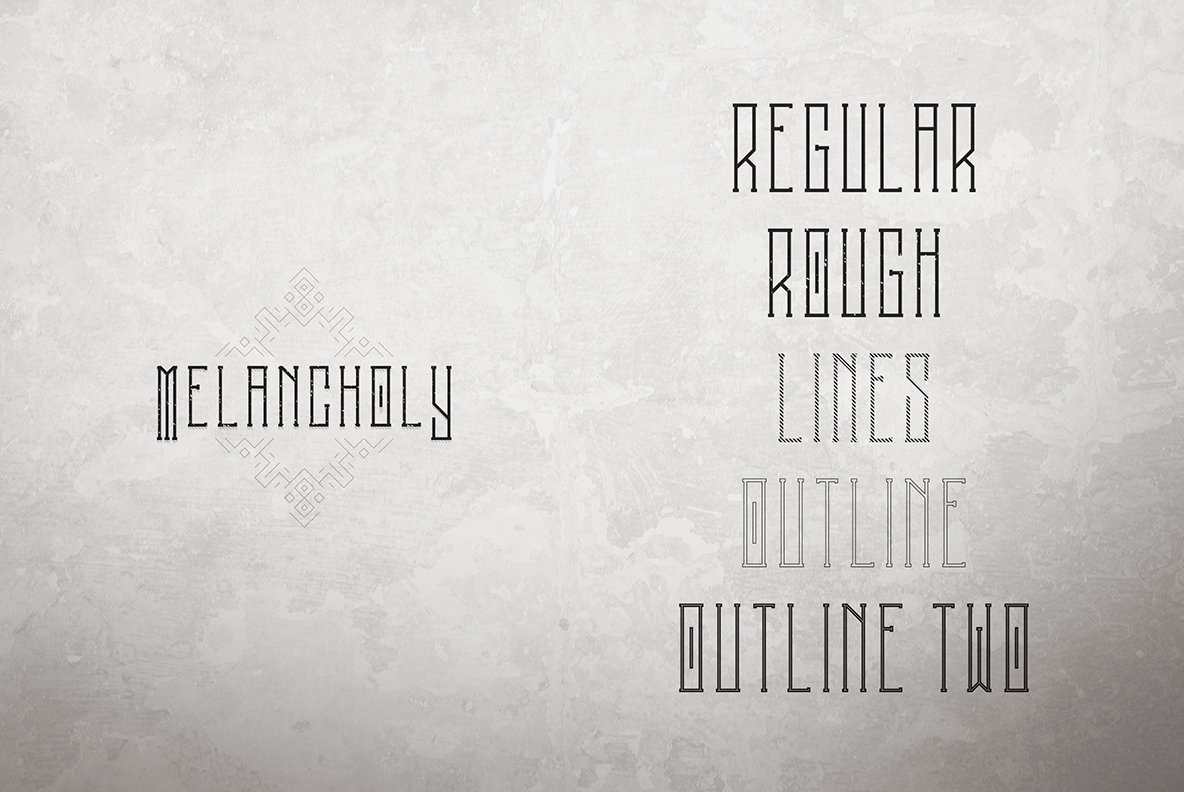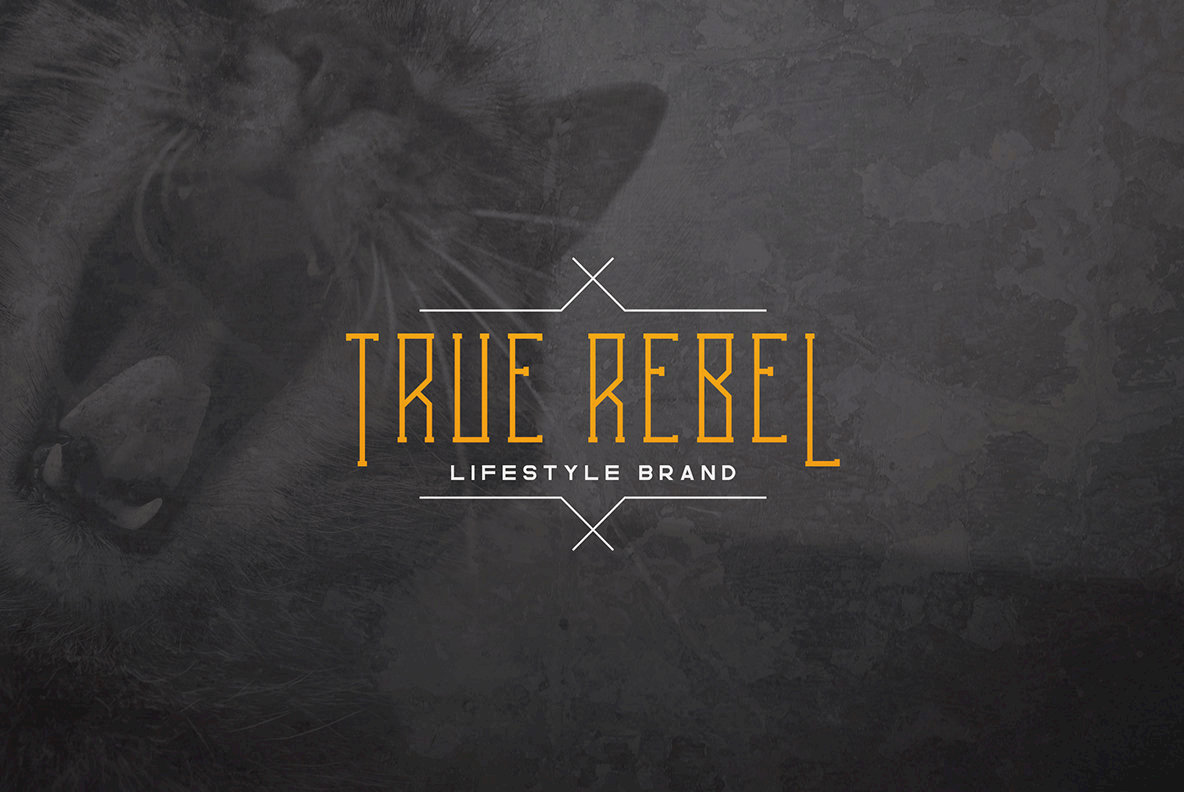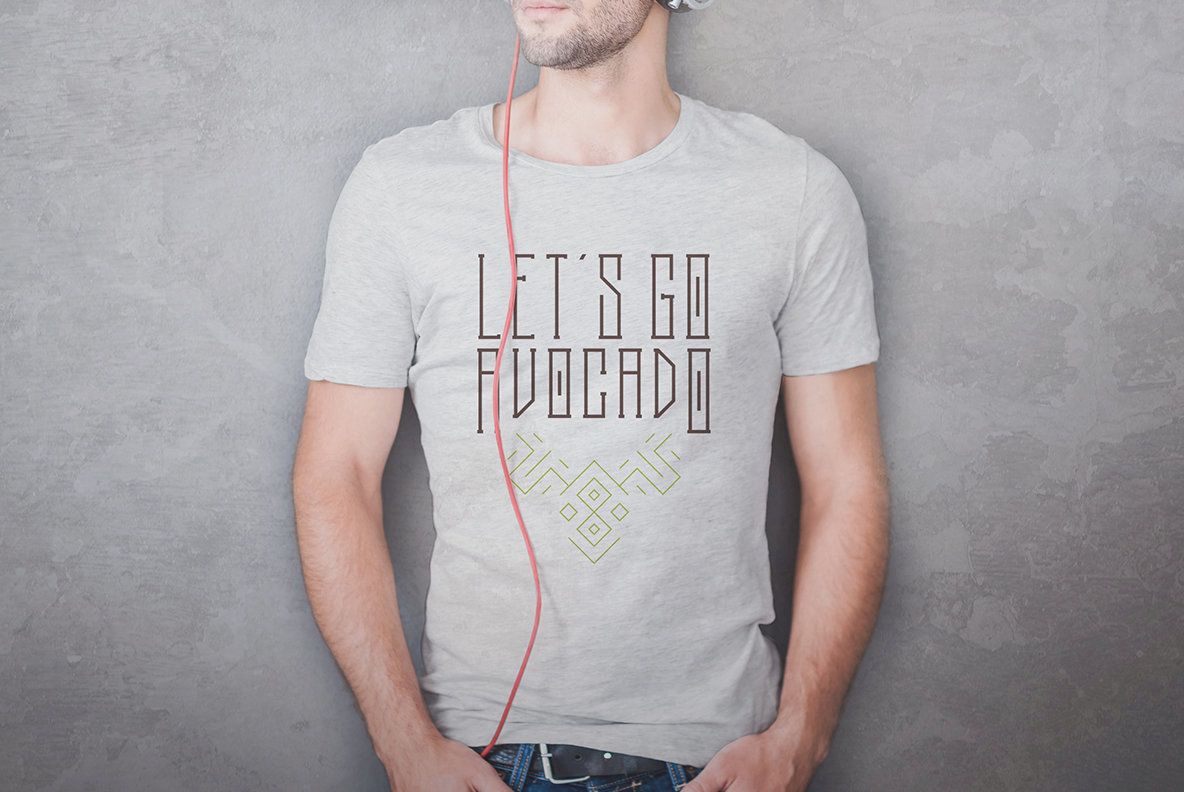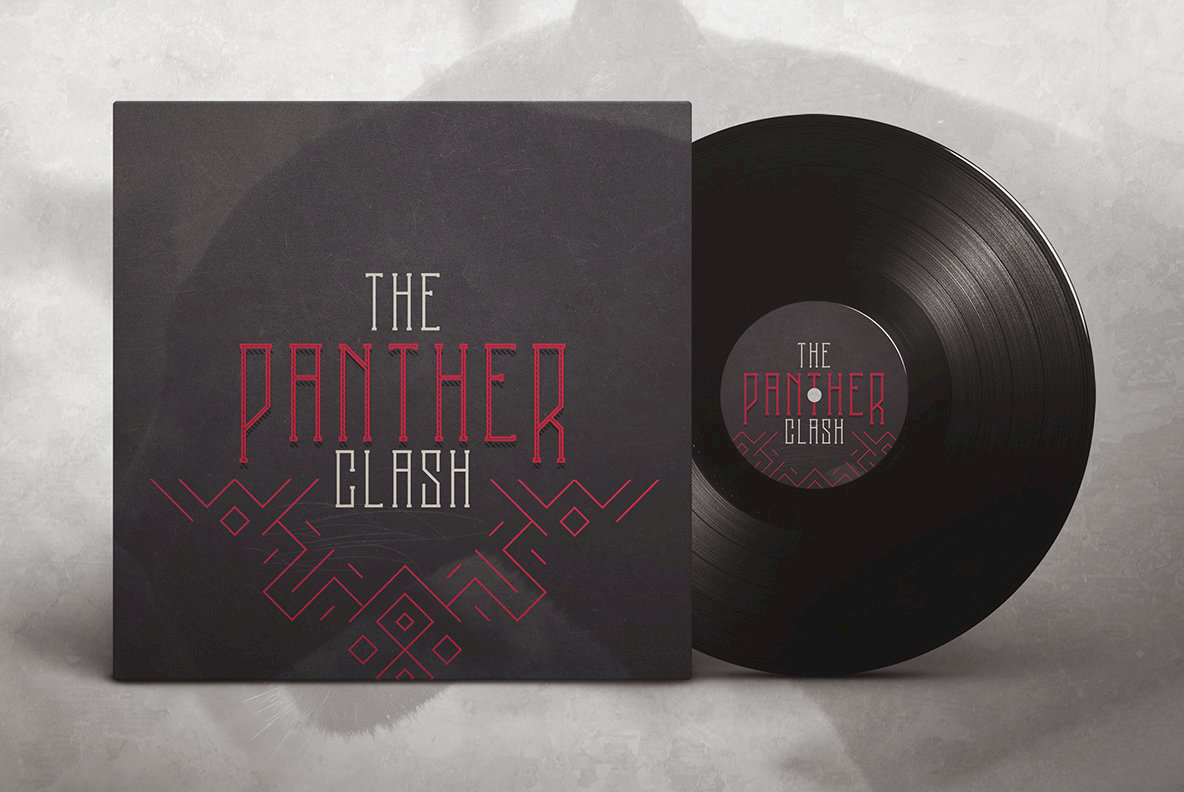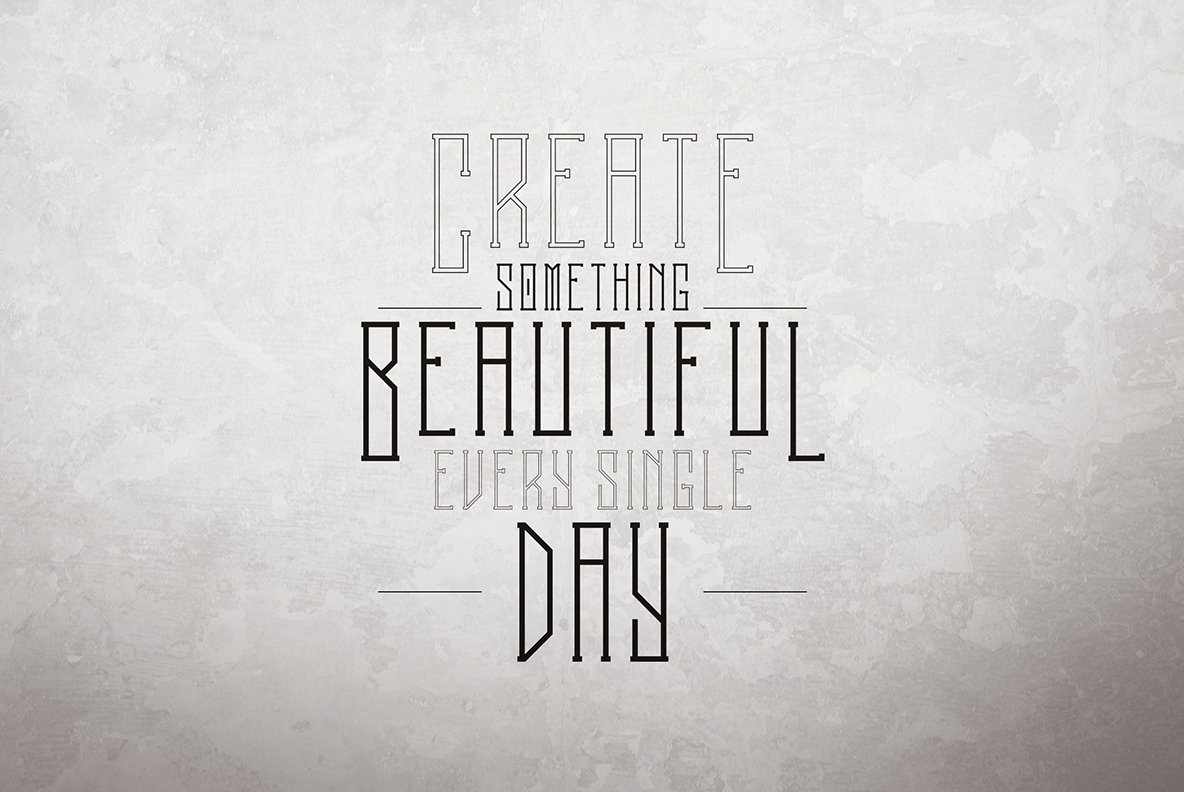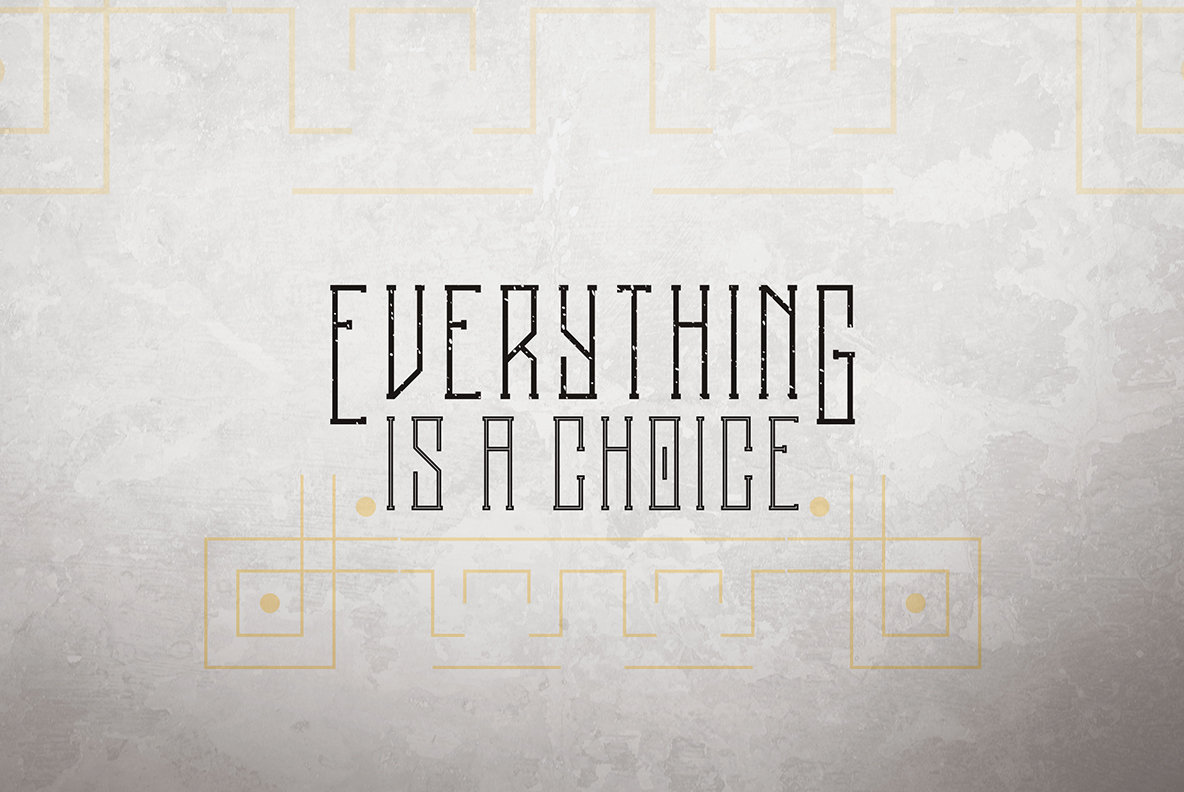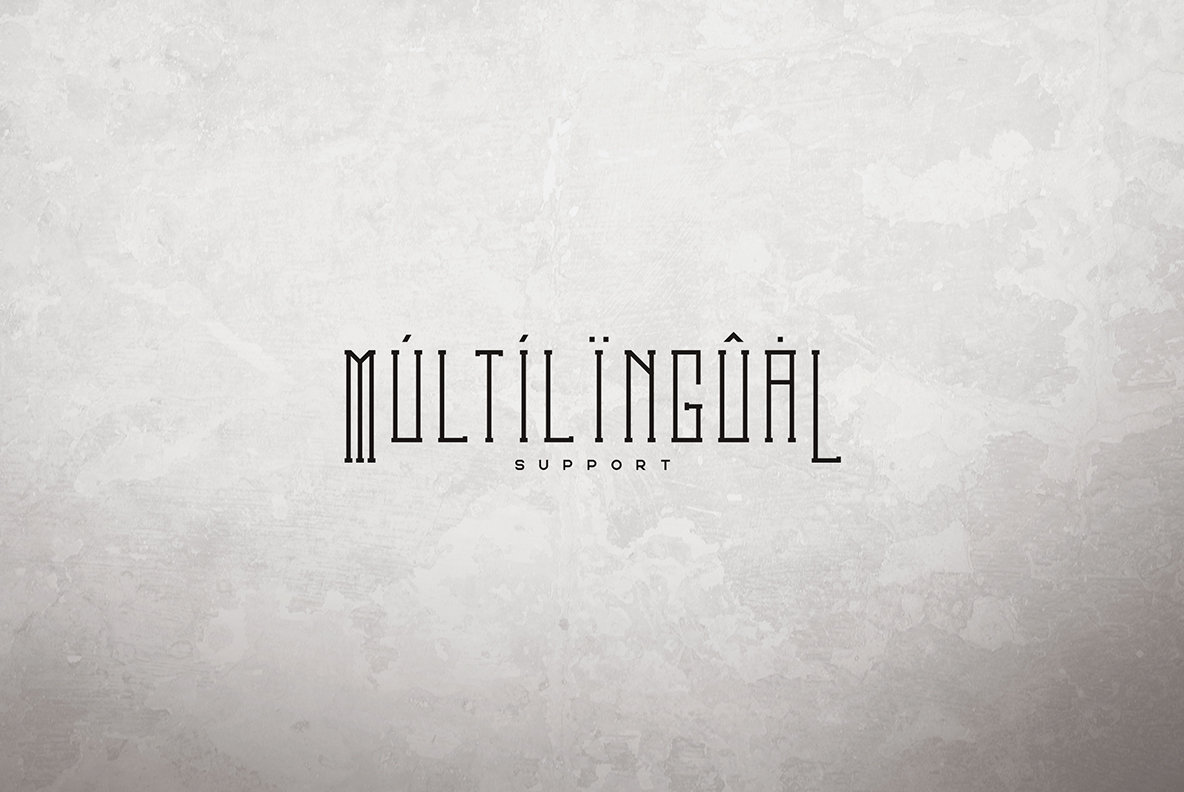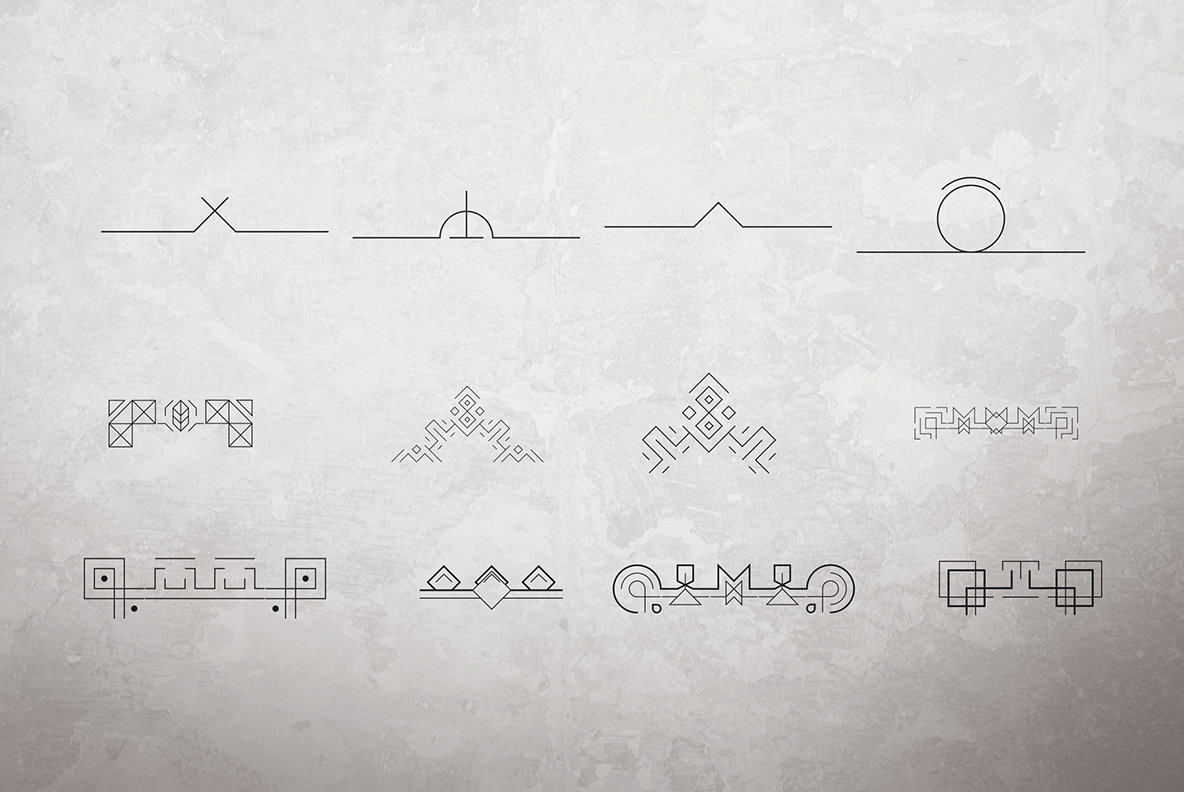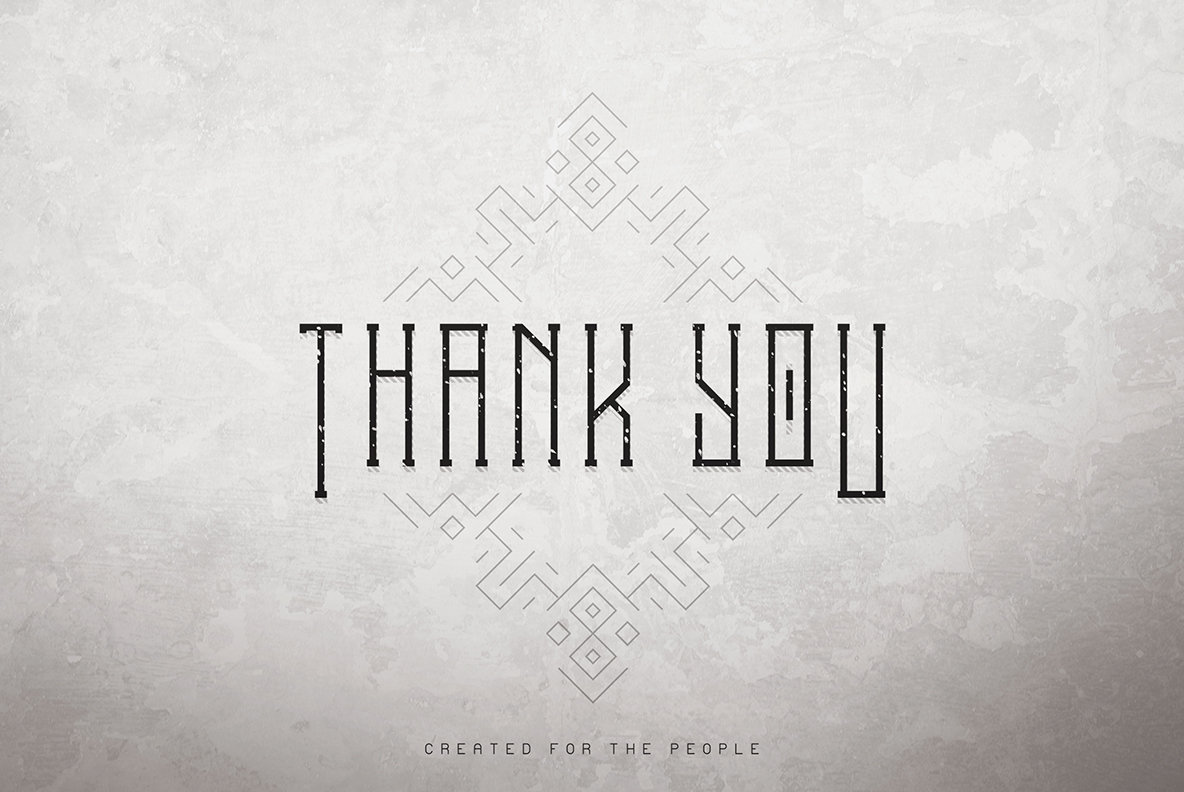
Melancholy Font
Melancholy Regular
Melancholy Lines
Melancholy Outline
Melancholy Outline Two
Melancholy Rough
Embrace the unique charm of the Melancholy Rough Display Typeface. As a sophisticated gothic typeface, Melancholy presents an intriguing blend of modern and historical design, making it an excellent choice for diverse projects. With its capacity to shine in both prominent and subtle applications, it effortlessly complements branding projects, homeware designs, product packaging, and magazine headers. Elevate your visuals with a touch of gothic elegance.Melancholy Typeface: A Gothic Versatility